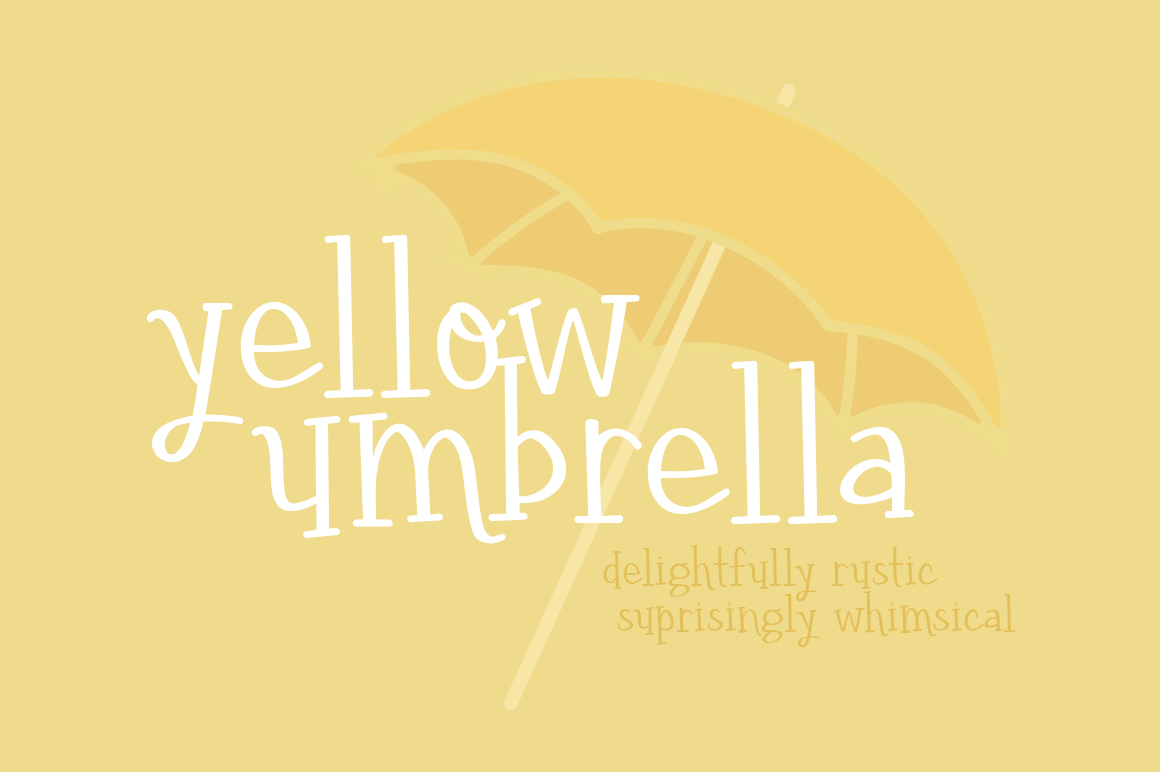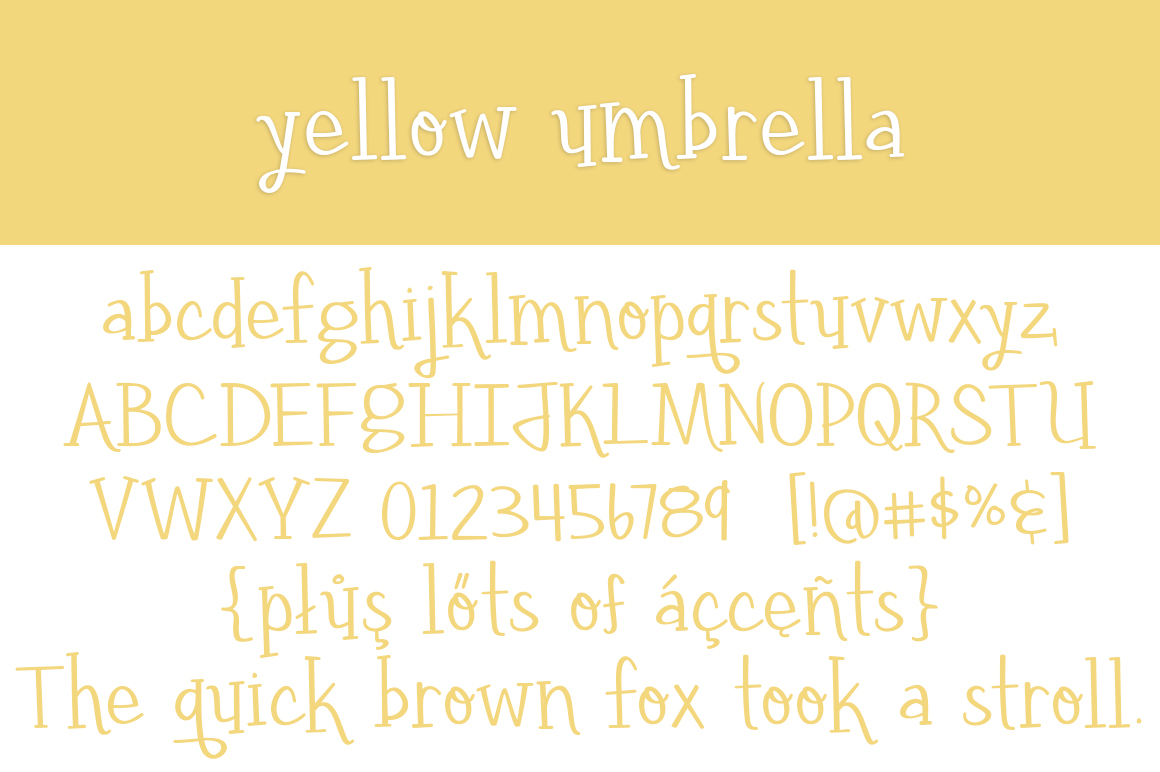
HomeScript FontsYellow Umbrella Font Script Fonts Yellow Umbrella Font FacebookXPinterestWhatsApp Yellow Umbrella Font Poster 2 About Yellow Umbrella Font Yellow Umbrella is a hand-drawn weighted serif. Give a lighthearted rustic look to your crafts and designs! DOWNLOAD ON CREATIVE FABRICAThis font is sold and delivered by Creative Fabrica. Font Canyon may earn a commission if you buy through this link. People also explored Marvin Bright Font Smoothness Font CN Sans Font Ashemore Softened Super Family Princess Berlianty Font Rushtian Font Cotton Hill Font Rosettary Golden Font Barcelony Font 298 0 TagsYellow Umbrella Font Previous articleYellow Umbrella Thin FontNext articleNight of the Fireflies Font LEAVE A REPLY Cancel reply Comment: Please enter your comment! Name:* Please enter your name here Email:* You have entered an incorrect email address! Please enter your email address here Website: Save my name, email, and website in this browser for the next time I comment. Personal Use Free Cute Butterfly Personal Use Free Read more about this font Unlock Endless Creativity with the FREE September Clipart Huge Bundle (Valued at $700!) Personal Use Free Read more about this font Butter Belly Personal Use Free Read more about this font Morning Miow Personal Use Free Read more about this font BLOG Elegant Wedding Invitation Fonts – Handwritten & Script Fonts Elegant Wedding Invitation Fonts Your wedding day is one of the most important moments of your life, and every detail matters—including your invitation design. Our... Transform Your Website: Elevate Your Typography with 7 Best Web Font Generators Using Fonts in Digital Marketing: Tips to Strengthen Your Brand Identity Fonts That Capture the Spirit of New York City